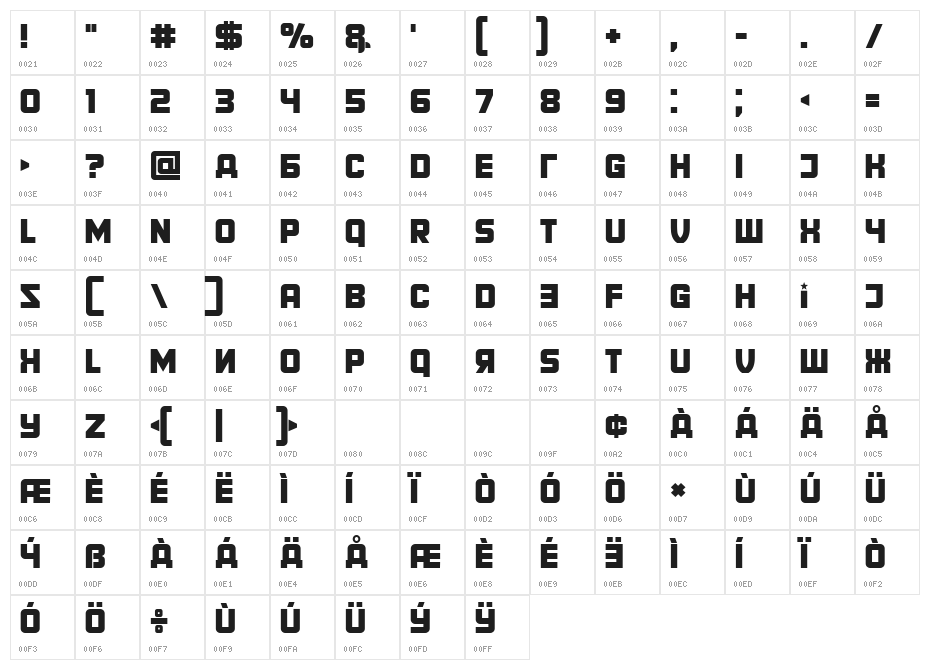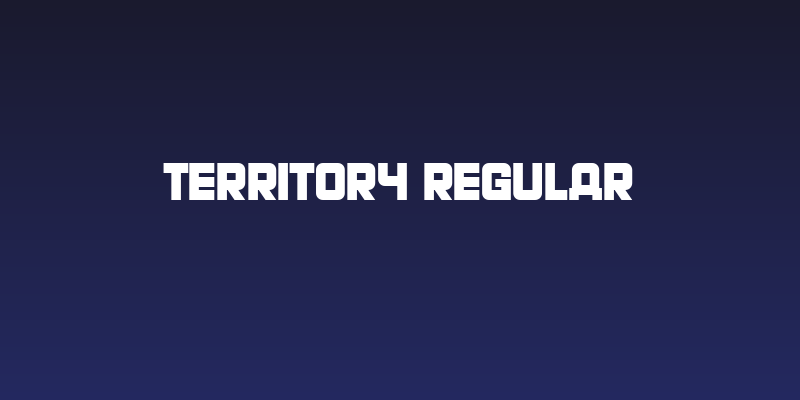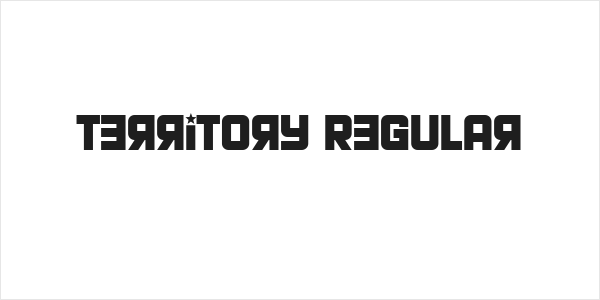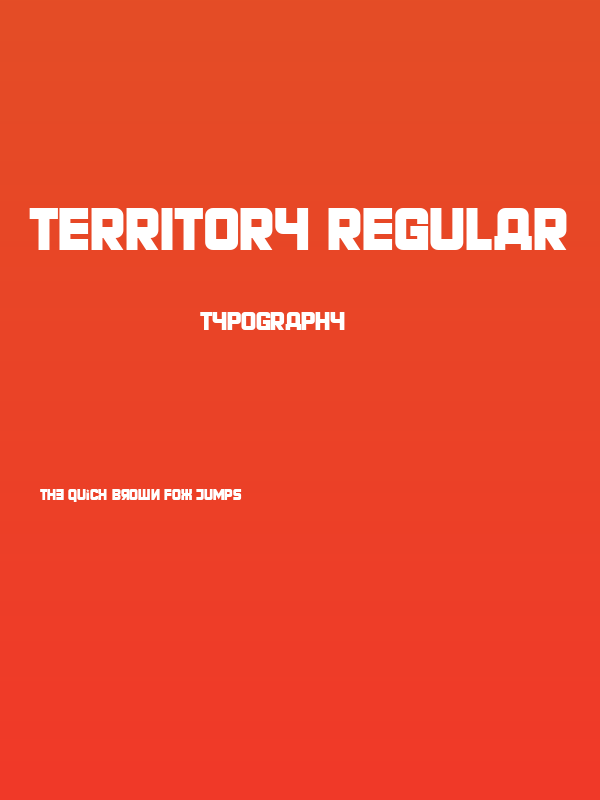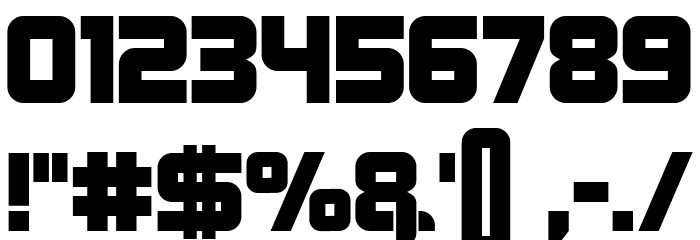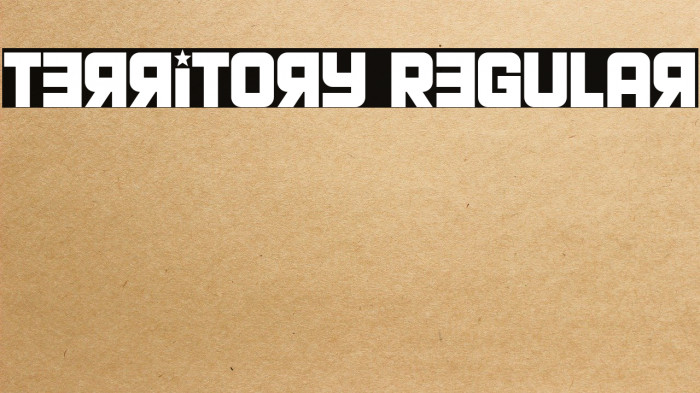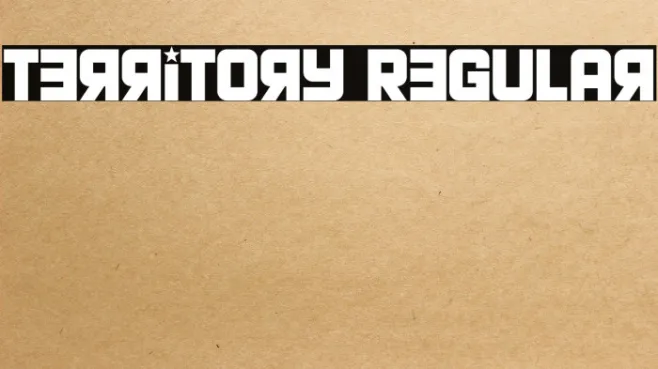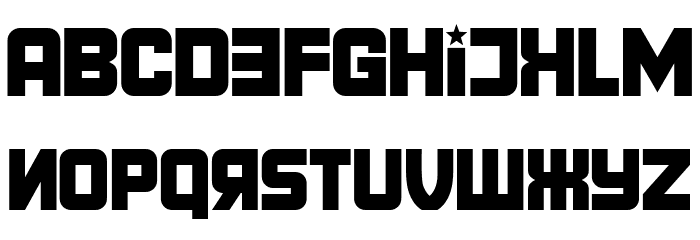
Territory Regular Font
Territory Regular Description
This bold and assertive font features a geometric and blocky design, characterized by its thick, uniform strokes and angular shapes. The uppercase letters are particularly striking, with a strong presence that commands attention. The numbers and special characters maintain the same boldness and geometric style, ensuring consistency across all characters. The font's design is reminiscent of industrial or futuristic aesthetics, making it suitable for projects that require a modern and impactful look.